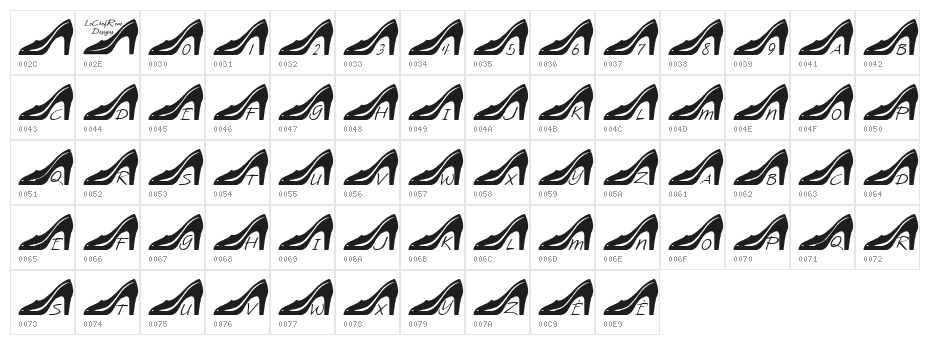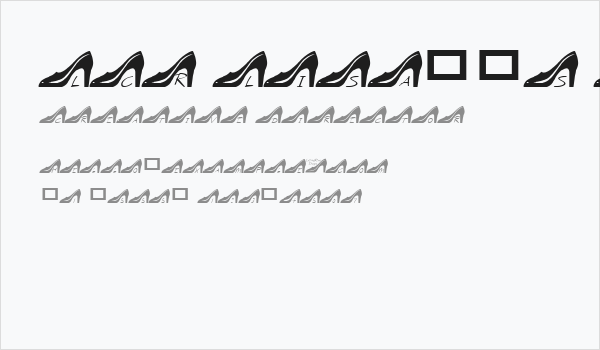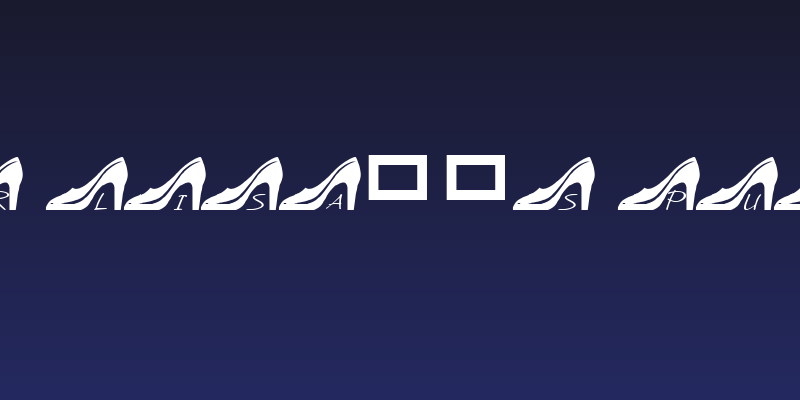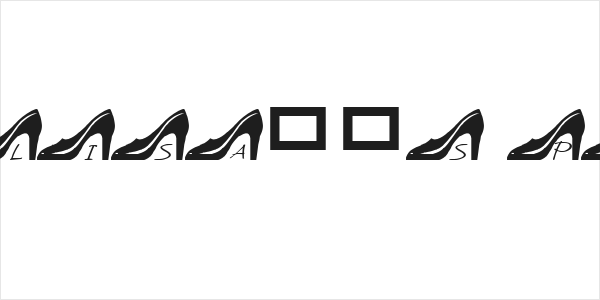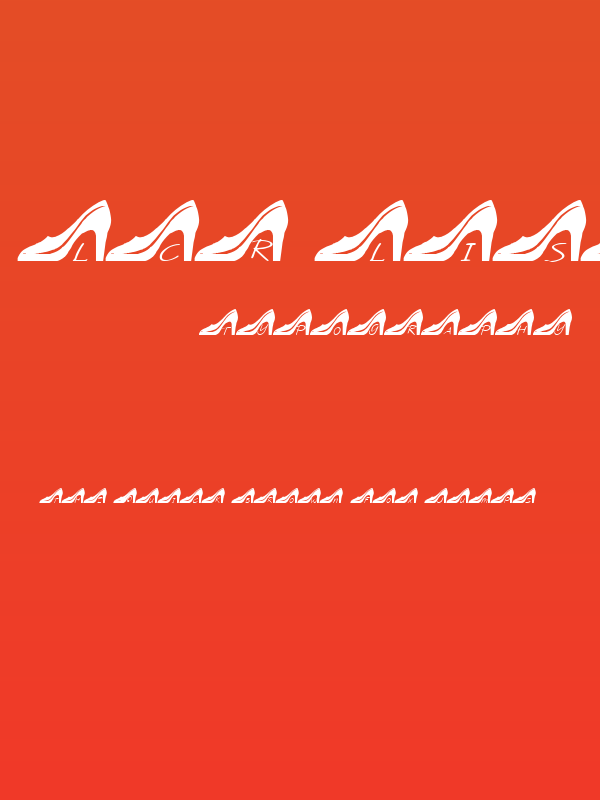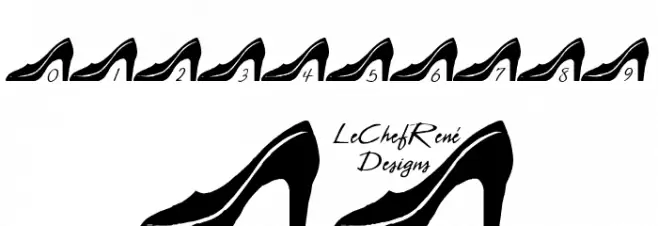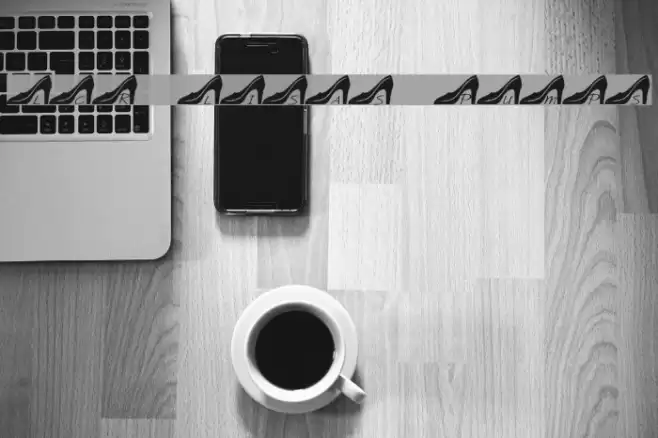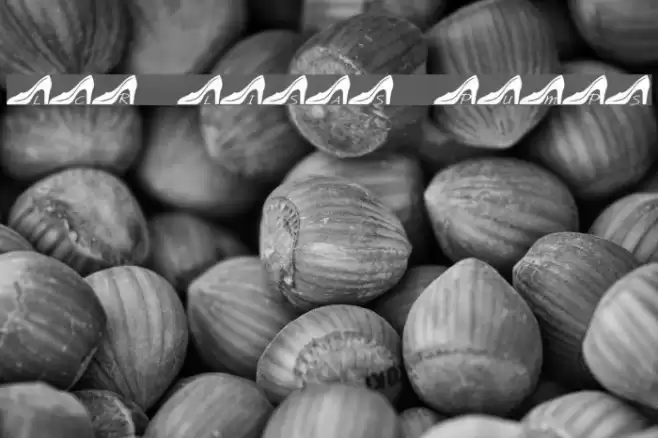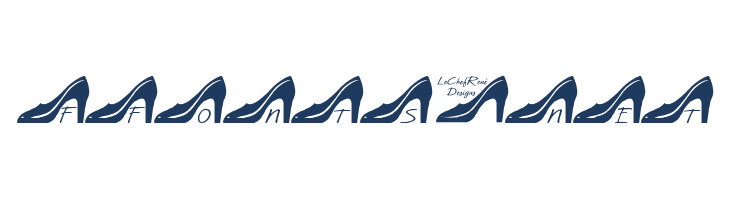
LCR Lisa's Pumps Font
This unique and playful font incorporates high-heeled shoe silhouettes as the backdrop for each character, creating a distinctive and fashionable appearance. The letters and numbers are elegantly integrated into the design of the shoes, making it ideal for projects that require a touch of style and creativity. The font is particularly suitable for fashion-related themes, offering a chic and modern aesthetic. The characters are well-defined within the shoe shapes, ensuring readability while maintaining a decorative flair. This font is perfect for adding a trendy and sophisticated element to any design.
| Proposed Projects | Ideal for fashion branding, boutique signage, event invitations, and stylish social media graphics. |